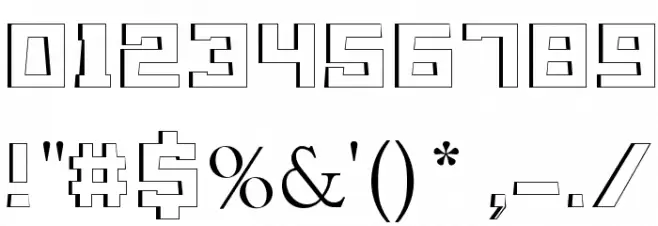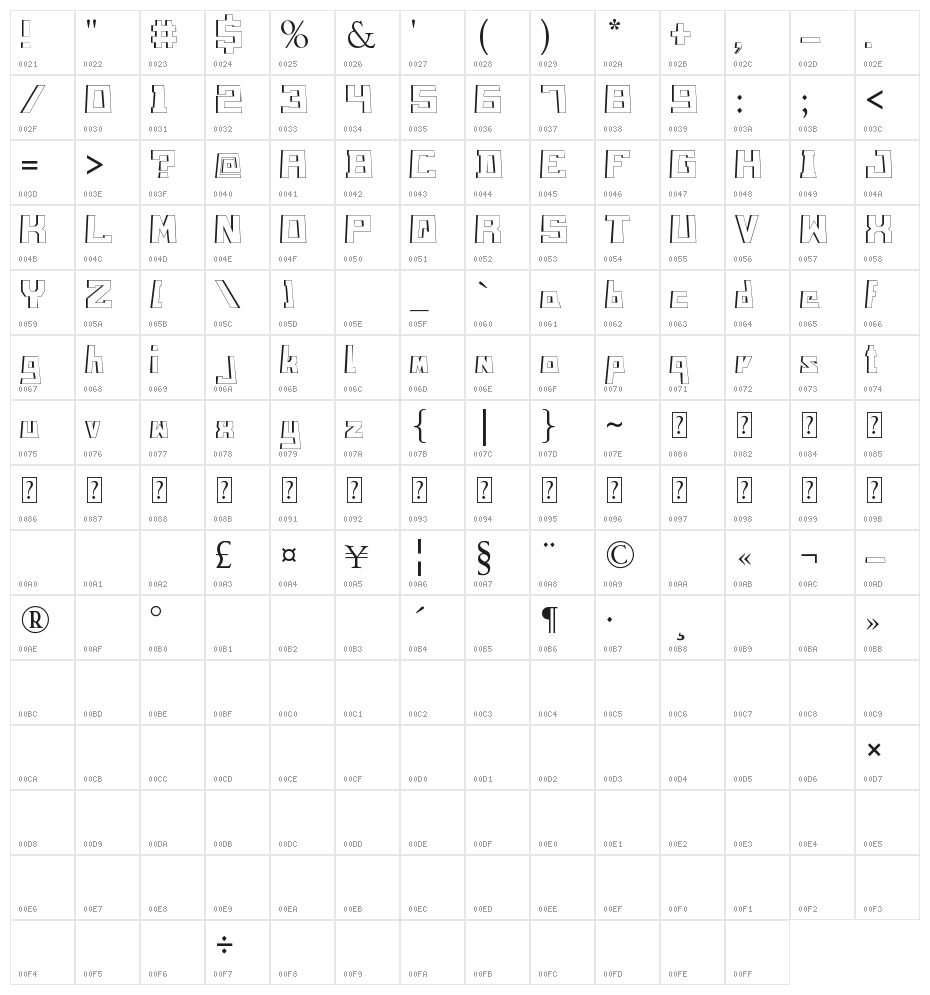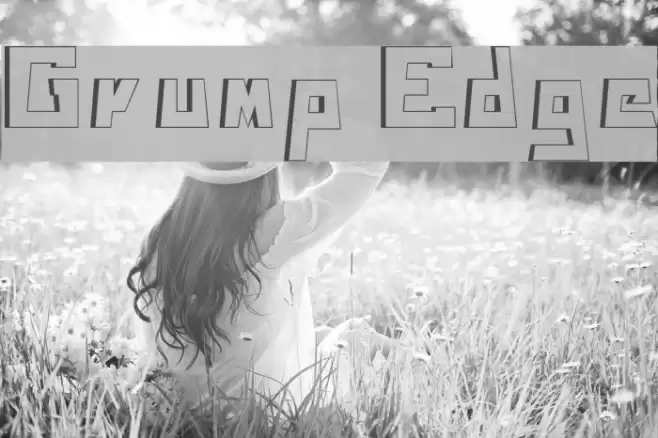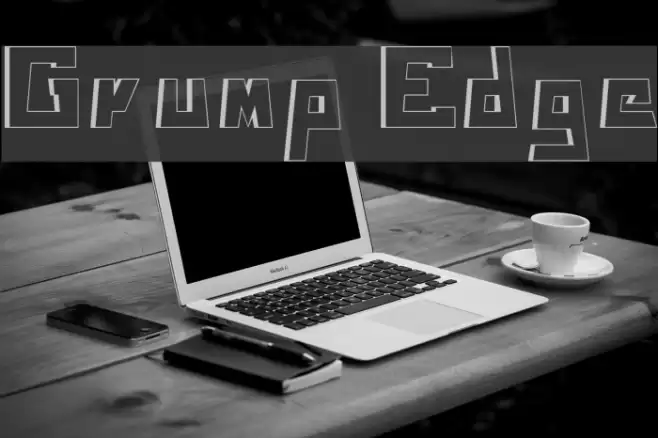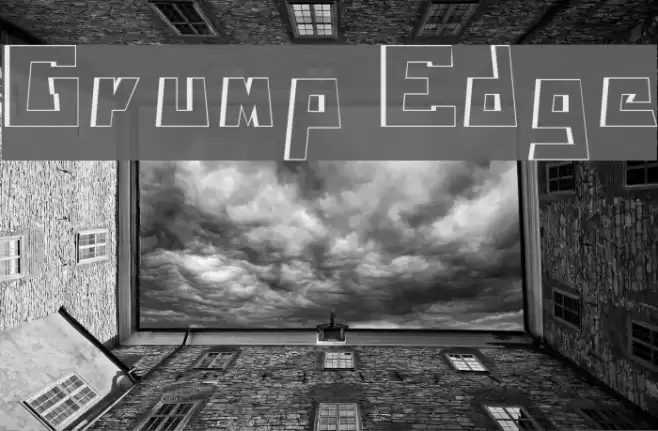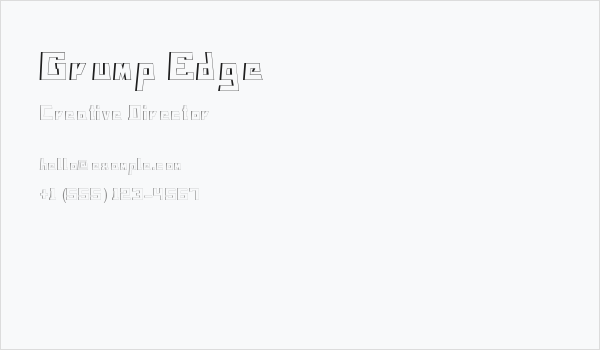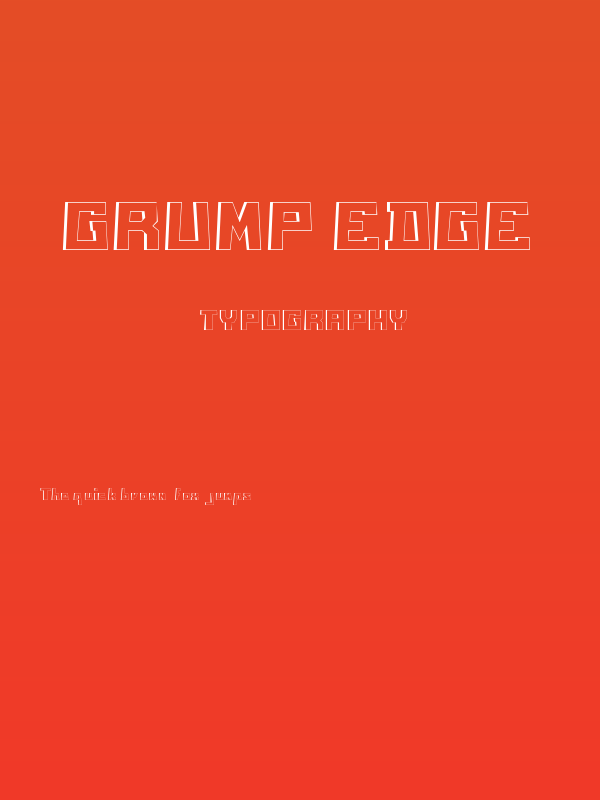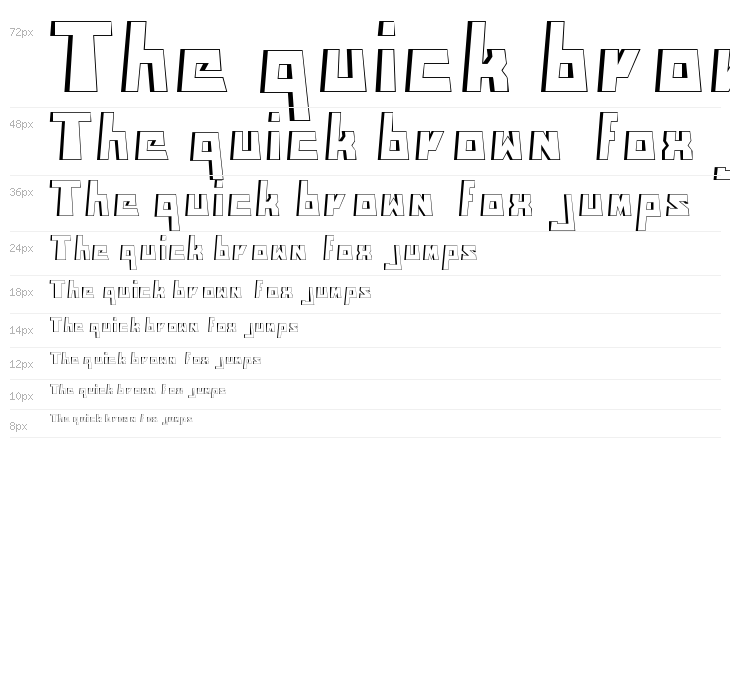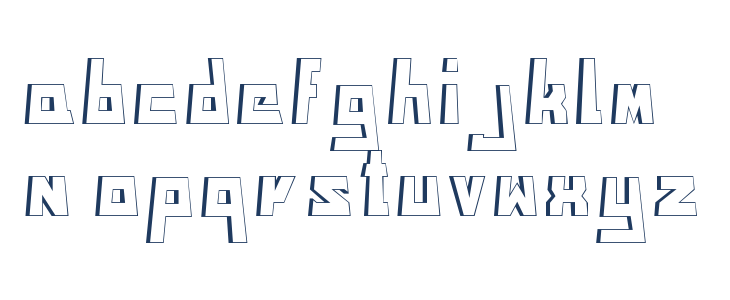
Grump Edge Font
Grump Edge Description
This font features a bold, geometric design with a distinct, edgy appearance. The characters are outlined, giving them a hollow look, which adds to their modern and futuristic style. The uppercase letters are angular and sharp, while the lowercase letters maintain the same geometric theme with slight variations in form. The numbers are consistent with the overall style, featuring straight lines and sharp angles. Special characters are designed to match the bold and edgy aesthetic, making them suitable for attention-grabbing designs. The font's unique structure makes it ideal for projects that require a modern and bold statement.
| Proposed Projects | Ideal for posters, logos, video game graphics, and futuristic-themed designs. |